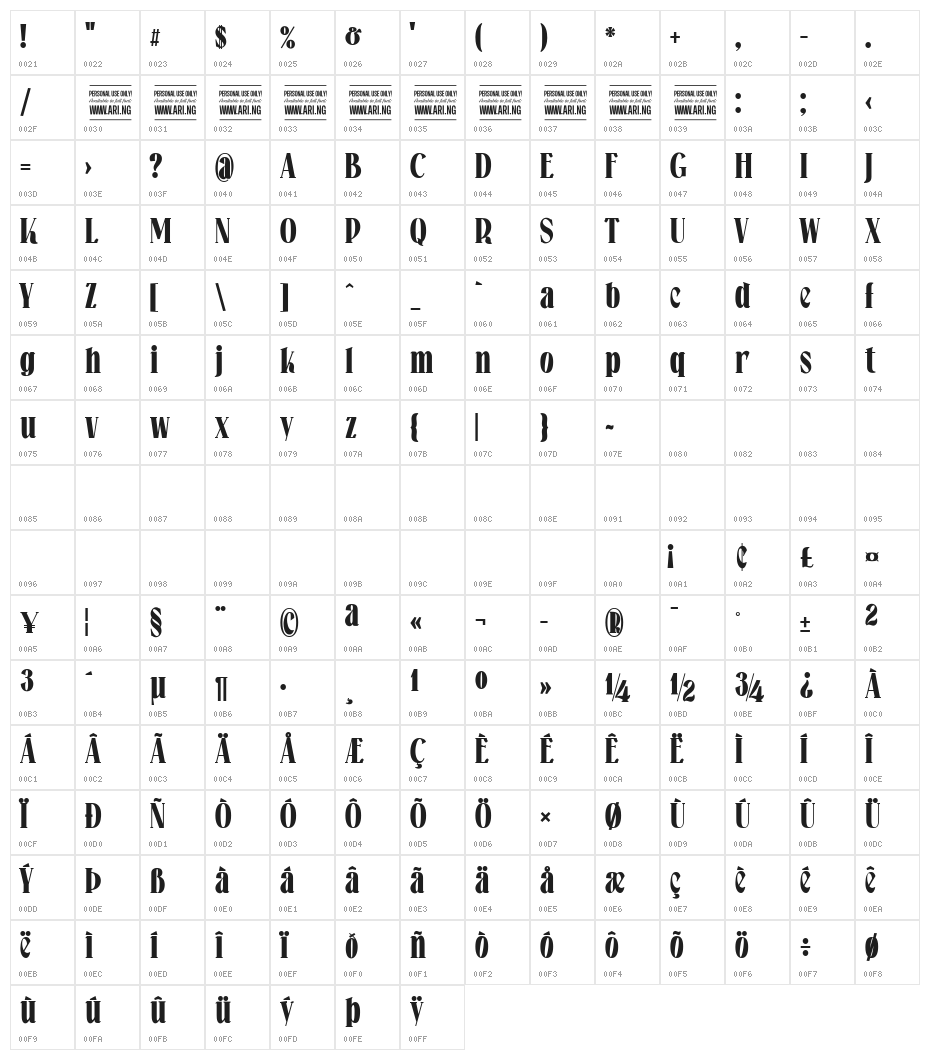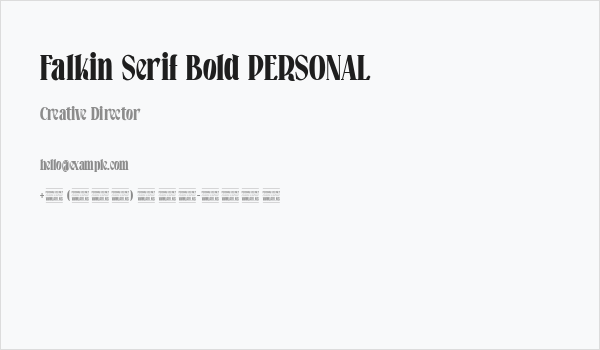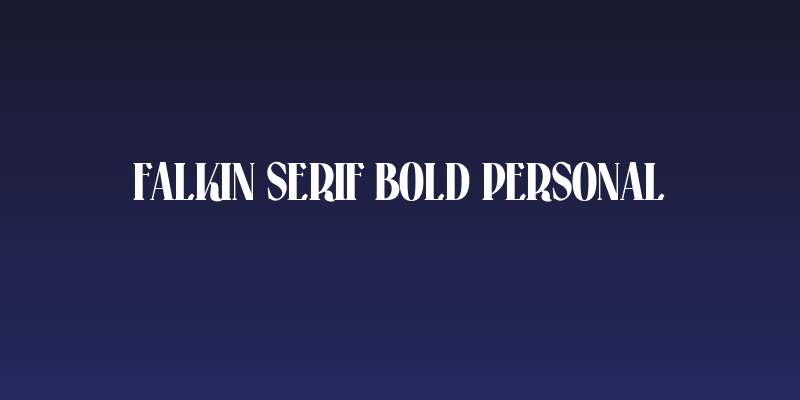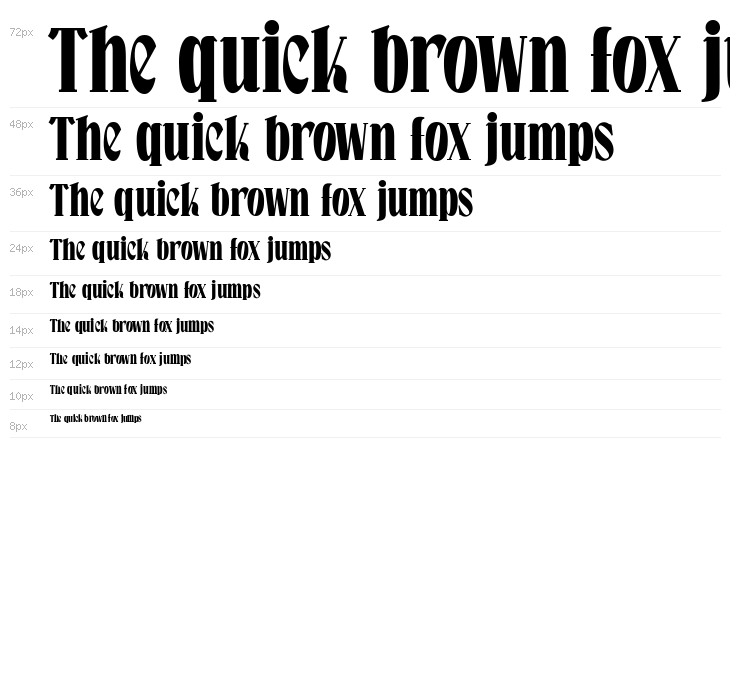
Falkin Serif Bold PERSONAL Font
Falkin Serif Bold PERSONAL Description
This font features a bold and striking serif style, characterized by its thick vertical strokes and contrasting thin horizontal lines. The serifs are sharp and pronounced, adding a classic yet modern touch to the overall appearance. The uppercase letters are tall and commanding, while the lowercase letters maintain a consistent weight, ensuring readability. The numbers and special characters follow the same bold design, making them stand out effectively. This font's design is both elegant and assertive, suitable for making a strong visual impact.
| Proposed Projects | This font is perfect for projects that require a strong and elegant typeface, such as branding, headlines, posters, and editorial design. |